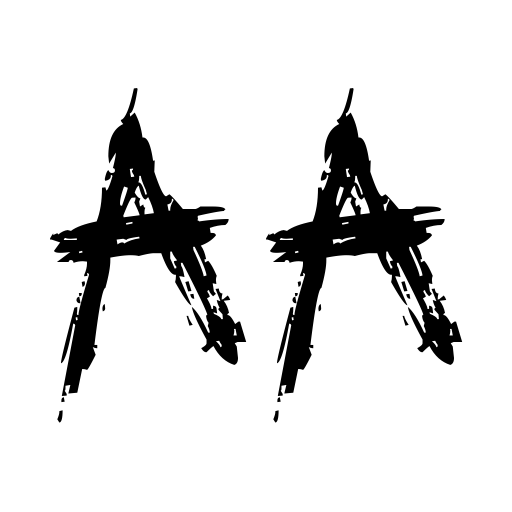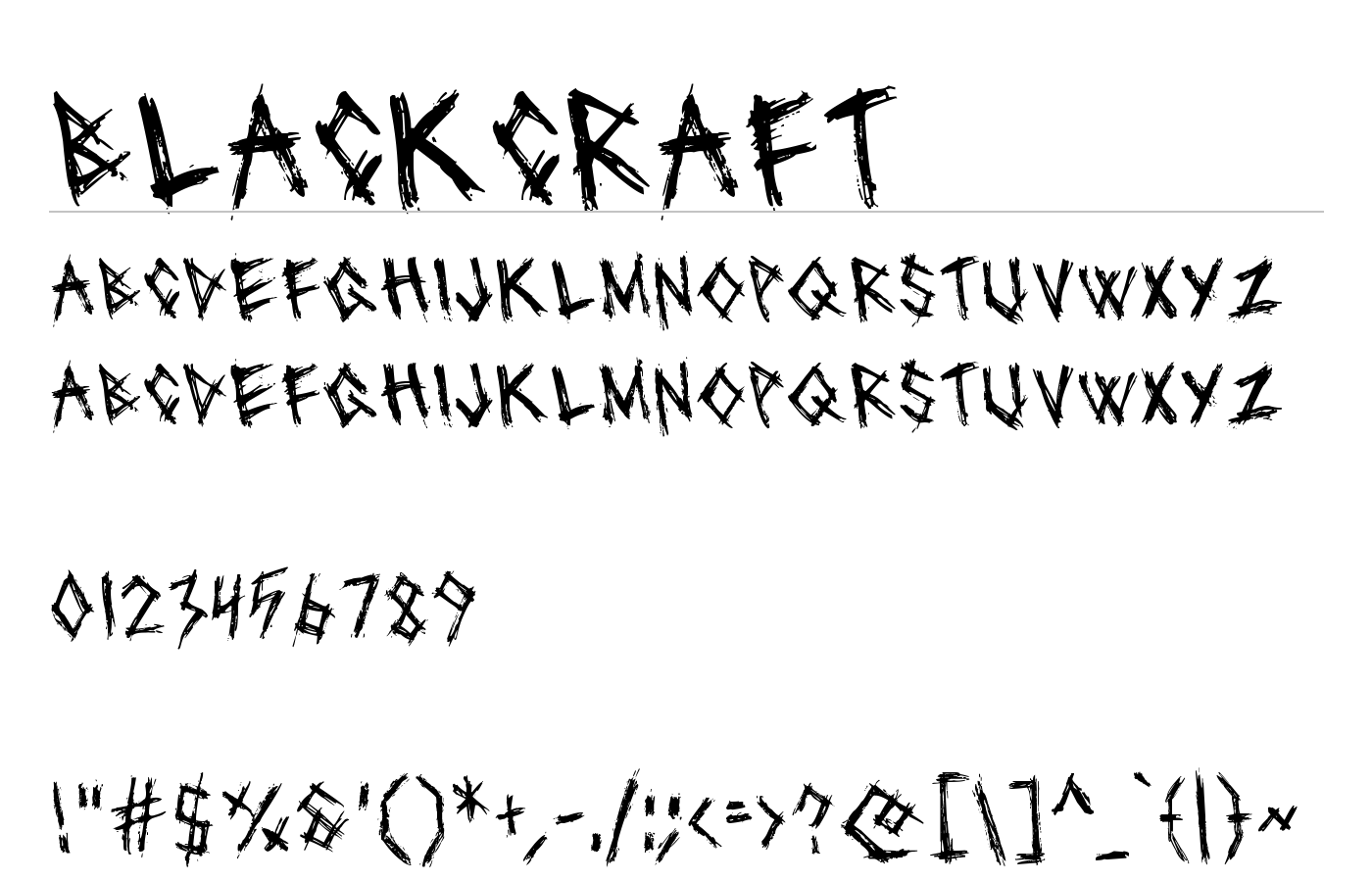
Blackcraft is a bold, distressed sans serif font with an edgy, hand-sketched appearance that gives it a rough, rebellious vibe. Its irregular strokes and sharp angles create a dramatic, grunge-like style perfect for designs that seek to stand out with a dark, alternative personality. This font works best for logos, posters, and branding projects that want to convey intensity, energy, and a raw, underground feel.
Blackcraft Font
About Blackcraft Font